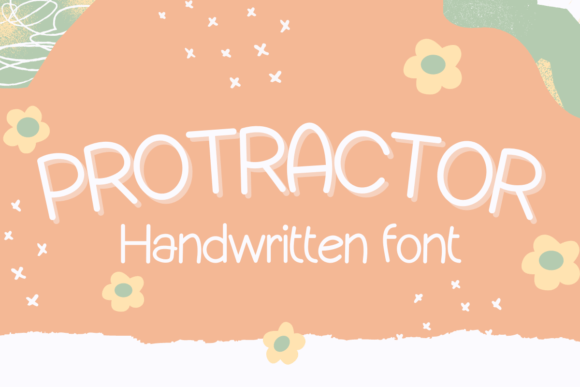
Dive into the world of handwritten charm with Protractor, a captivating sans serif font family that dances with personality. Crafted by the talented Sirinart, Protractor's elegant strokes and playful curves evoke a sense of heartfelt expressiveness, making it the perfect choice for adding a touch of warmth and authenticity your creative endeavors.
Step into the realm of DIY artistry with Protractor and create stunning birthday banners that radiate joy and merriment. Its carefully crafted characters, brimming with character, will make your words leap off the page, transforming your celebratory messages into cherished keepsakes.
Unleash your inner artist and immerse yourself in the endless possibilities that Protractor presents. Whether you're designing eye-catching social media posts, personalizing mugs or cards, or crafting memorable stationery, Protractor will grace your creations with its unique charm, leaving a lasting impression on all who behold it.
Protractor's versatility knows no bounds. Its handwritten style lends an air of genuineness to journals and diaries, transforming them into intimate companions for your thoughts and memories. However, its adaptability extends far beyond personal expression. Protractor shines as a visionary choice for content creation, adding a touch of magic to your digital world.
With Protractor by your side, your creative projects will blossom with individuality and charm. Embrace the beauty of expressive typography and let your creativity soar to new heights.